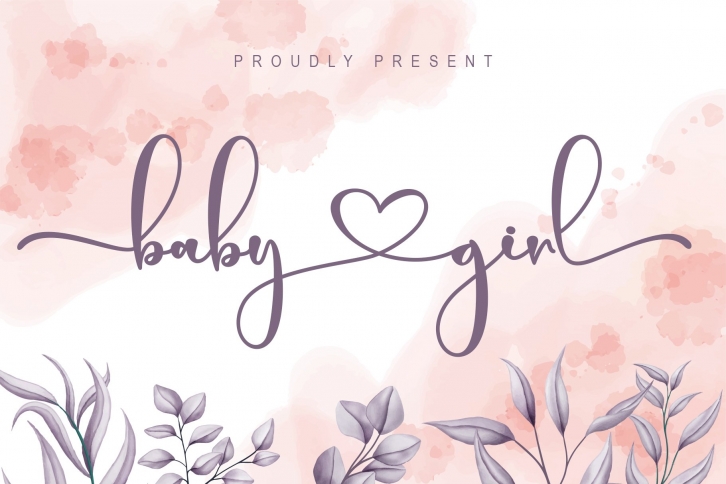
Baby girl is a beautiful font that was designed by Thomas Aradea. It's a great choice for designers and creatives who need such a font. It was released on February 22, 2021 and the file size is 11.11 MB. Baby girl may give a more youthful, expressive and casual look to your project. It is a very beautiful, refined, elegant, and high-quality font.